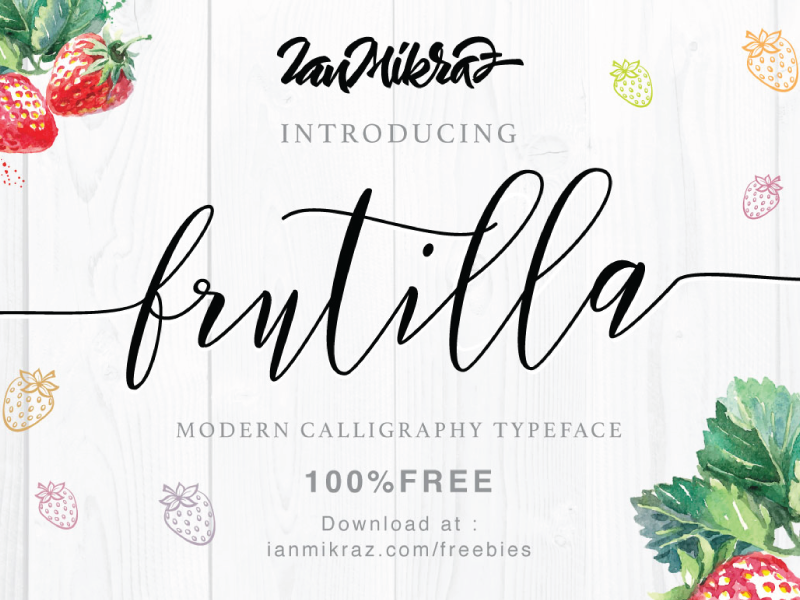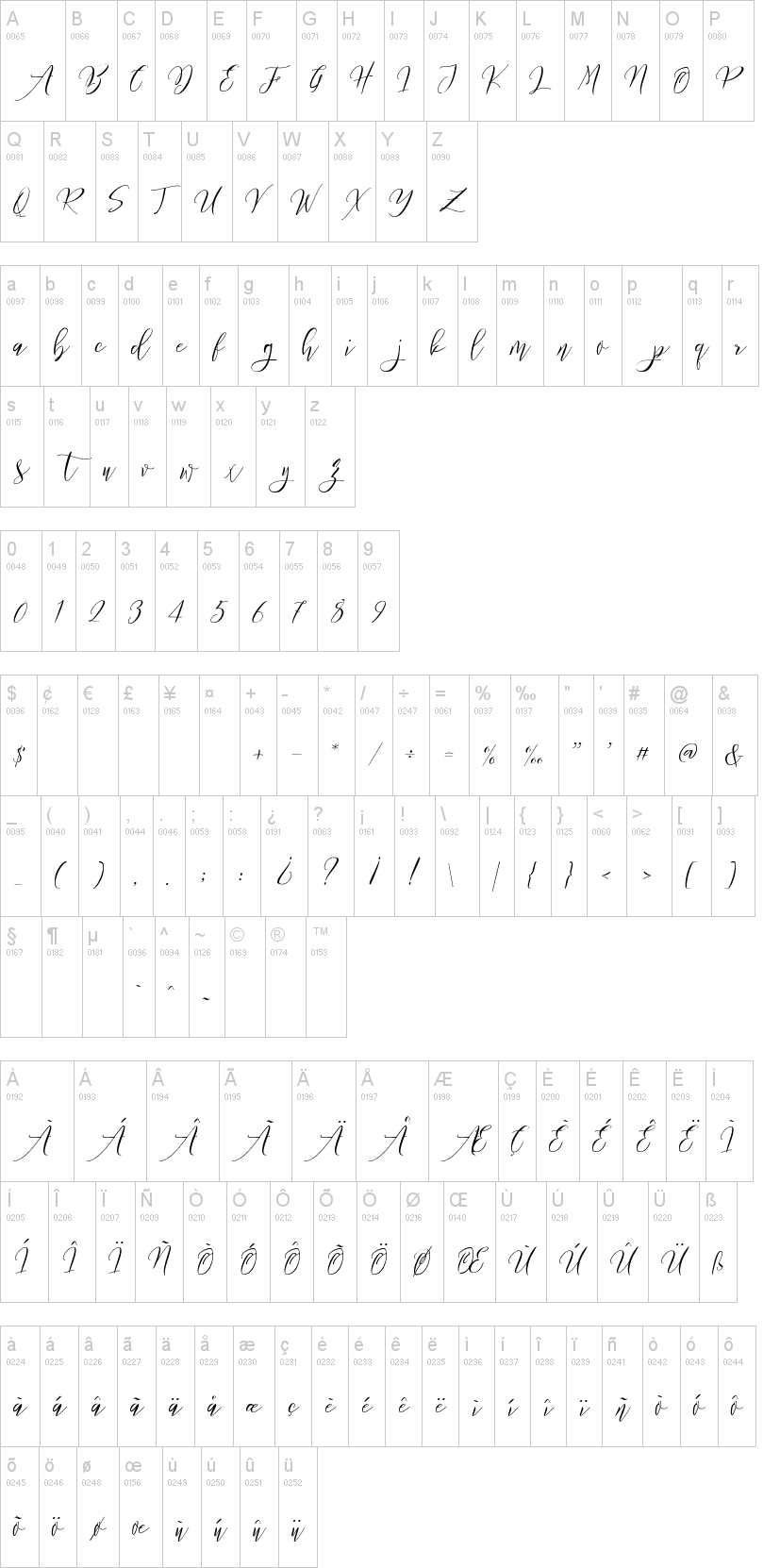
Note of the authorFrutilla Script Free Font Typeface is a new Modern Calligraphy Typeface Fonts collection from Ianmikraz studio.
Combines from copperplate to contemporary typeface, classic, beauty and elegant touch.